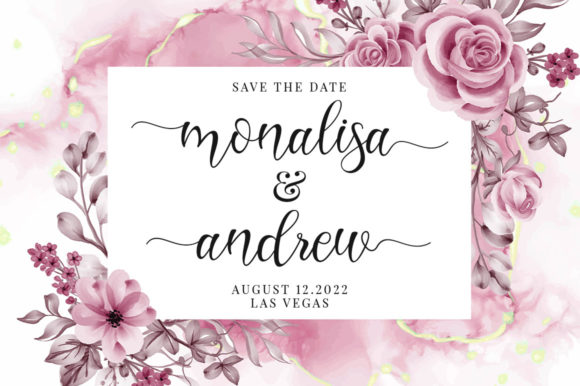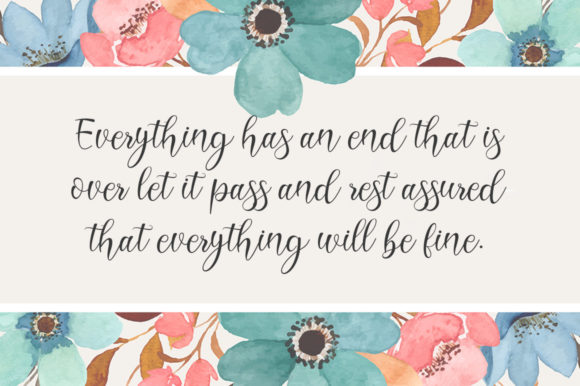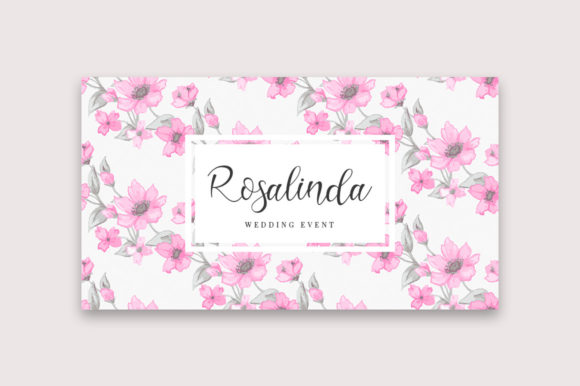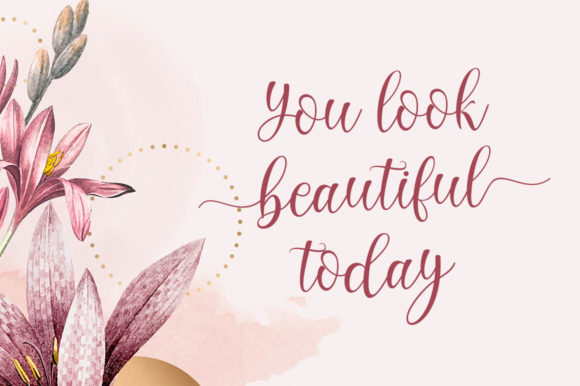
Introduction to Sherlia Script Font
Have you ever stared at a blank canvas, waiting for the perfect words to flow onto the page? As designers, we’ve all been there – searching for that elusive spark that brings our creative project to life. For many of us, the right font can be just the catalyst we need to make our vision shine.
That’s where Sherlia Script Font comes in – a delicate and elegant handwritten font that’s as beautiful as it is versatile. With its distinct and well-balanced letters, this font is a true masterpiece, making it an invaluable resource for any designer looking to elevate their work.
What sets Sherlia Script Font apart is its PUA encoding, allowing you to access all of the glyphs and swashes with ease, even on a transparent background. Whether you’re working on a high-quality design project or simply need a reliable font for your next creative endeavor, Sherlia Script Font is a free download that’s sure to become a trusted design resource.
Key Features of Sherlia Script Font
- High-quality, elegant script font perfect for creative projects, offering a touch of sophistication and style.
- Unique, handwritten style with subtle flair and expressiveness, ideal for adding a personal touch to designs.
Honest Review: Sherlia Script Font
I recently stumbled upon the Sherlia Script Font, and I must say it’s a beautiful addition to any design project. With its high quality and elegant feel, this font is perfect for a creative project that requires a touch of sophistication.
The Sherlia Script Font features a transparent background, making it a great design resource for anyone looking to add some flair to their work. Plus, it’s available for free download, which is a huge plus in my book.
- ✨ Elegant and sophisticated feel that adds a touch of class to any design
- ⚠️ Limited font variations, which may not be suitable for complex designs
- ⚠️ May not be suitable for designs that require a bold or playful font
Overall, I’m impressed with the Sherlia Script Font. It’s a great design resource for anyone looking to add some elegance to their work, and its free download makes it an accessible option for designers of all levels.
The Sherlia Script Font is a versatile font that can be used in a variety of creative projects, including wedding invitations, birthday party decorations, and branding materials. It’s also a great font to use for free download, making it a valuable design resource.
Tips for Getting the Most Out of the Sherlia Script Font
To get the most out of the Sherlia Script Font, use it on a transparent background to create a clean and elegant design. Experiment with different font sizes and colors to add depth and interest to your design. Use the Sherlia Script Font in combination with other fonts to create a unique and eye-catching design.